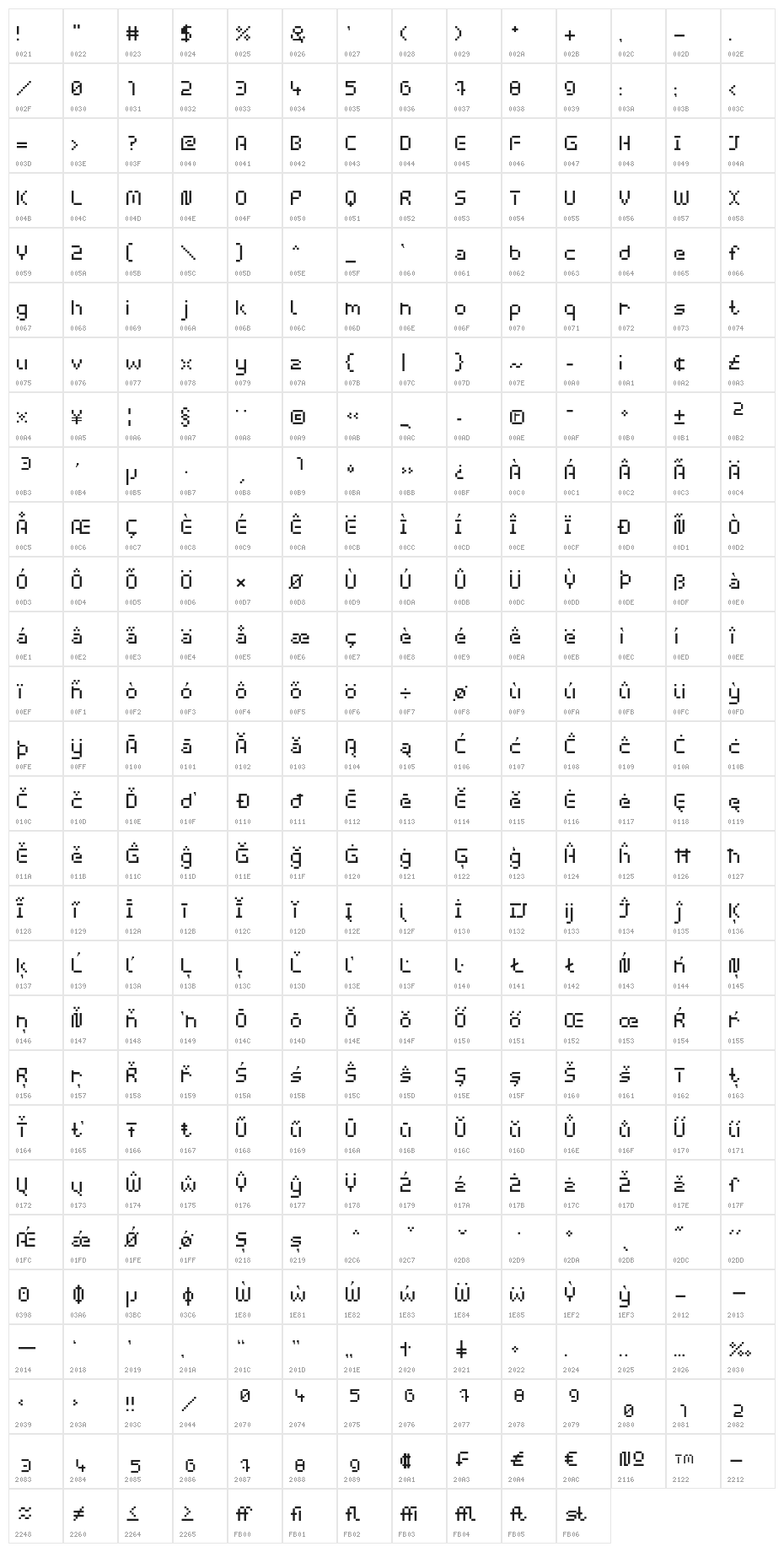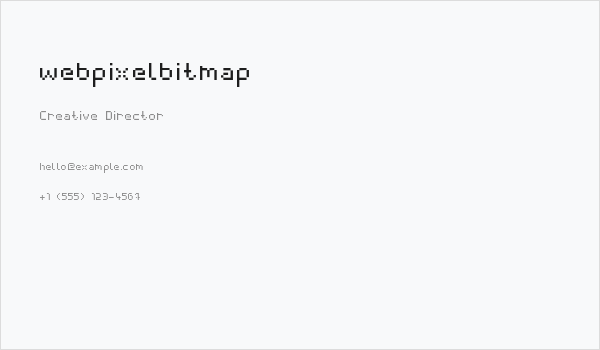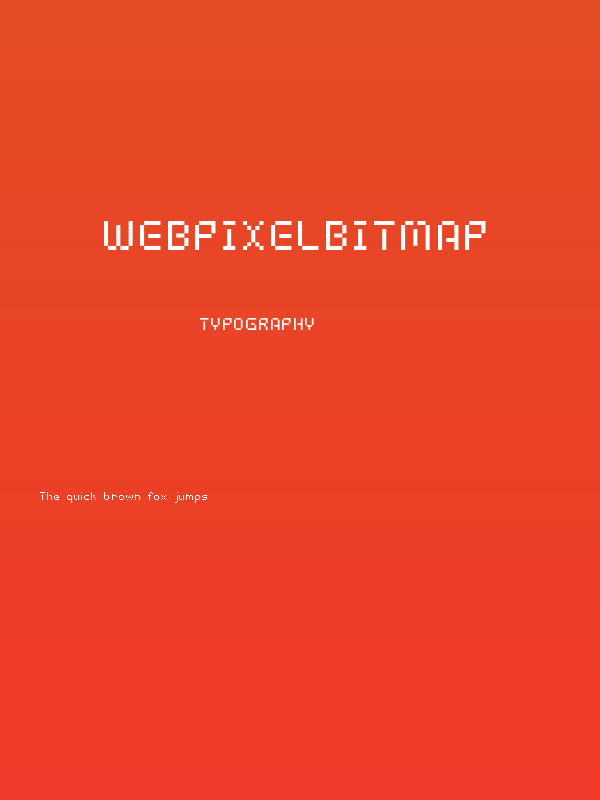
webpixelbitmap Font
webpixelbitmap Description
This font features a pixelated, bitmap style reminiscent of early digital displays and video games. Each character is constructed with a grid-like precision, giving it a distinctly retro and digital aesthetic. The uppercase and lowercase letters maintain a consistent height, with minimal differentiation in stroke width, emphasizing a monospaced appearance. The numerals and special characters follow the same pixelated design, ensuring uniformity across all glyphs. This font is ideal for projects that aim to evoke nostalgia or a tech-oriented theme, capturing the essence of classic computing and gaming interfaces.
| Overall Style | Retro, Digital |
| Use Case | Logos, Headlines, Digital displays |
| Proposed Projects | Ideal for retro video games, tech-themed designs, digital art projects, and nostalgic branding. |